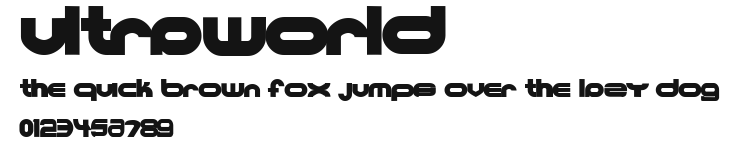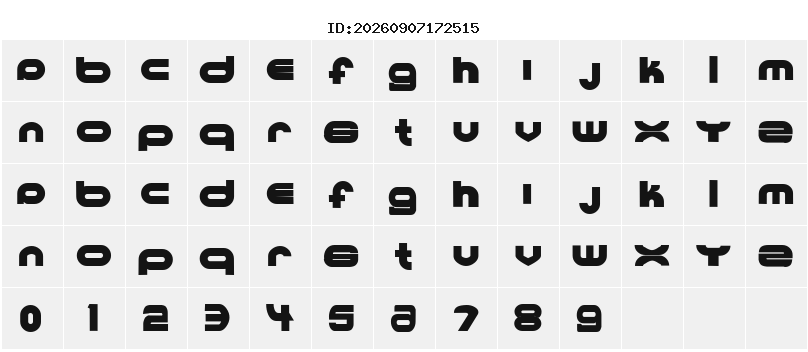
Ultraworld Preview
• Font Name: Ultraworld
• Full Font Name: Ultraworld
• Copyright: Ultraworld, the Orb font, (c) 1994 Kiwi media
About Ultraworld.ttf
Ultraworld.ttf is a modern, elegant sans-serif font designed for ultimate readability and visual harmony. Perfect for branding, headlines, web design, and print materials.